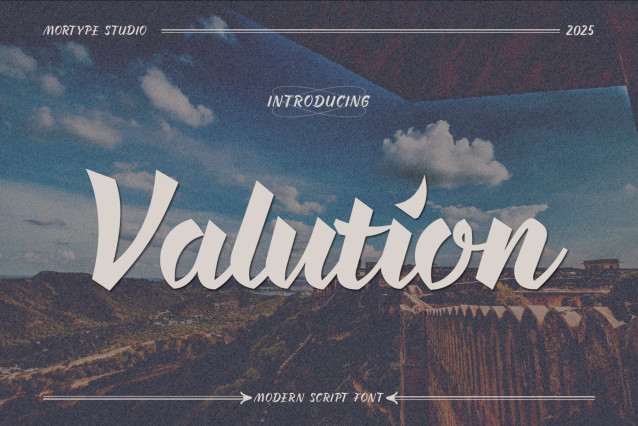
Valution Script Font
Valution Script Font is a modern and bold script font. Each letter has a unique and beautiful touch, which will bring your designs to life! This font is PUA encoded which means you can access all of the glyphs and swashes with ease!